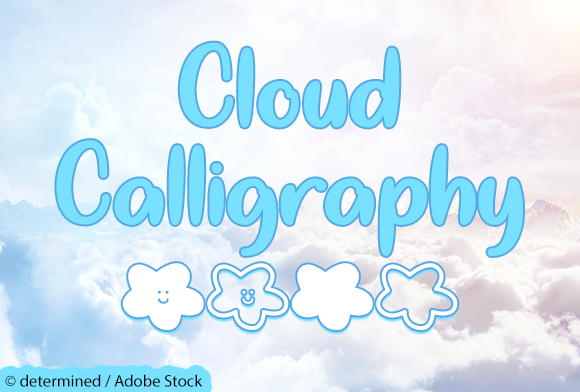
Cloud Calligraphy Font
About Cloud Calligraphy Font
Cloud Calligraphy is a cute calligraphy typeface that is a great for a variety of projects!
SPECIAL SYMBOLS
Type * (asterisk) for the cloud smiley
Type ^ (caret) for the solid cloud smiley
Type \\ (backslash) for the open cloud
Type ~ (tilde) for the solid cloud